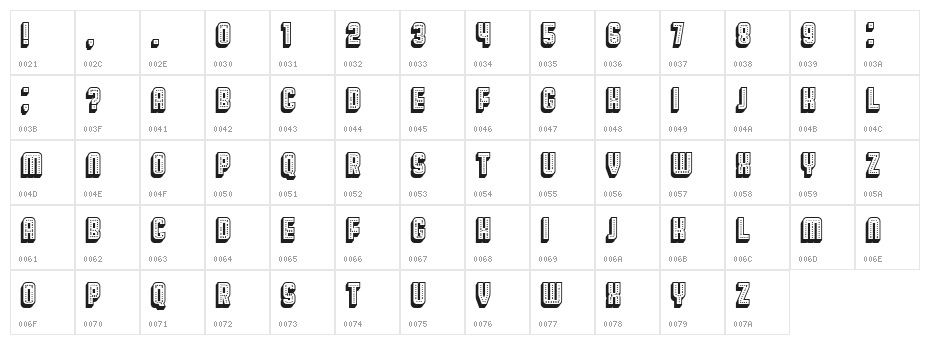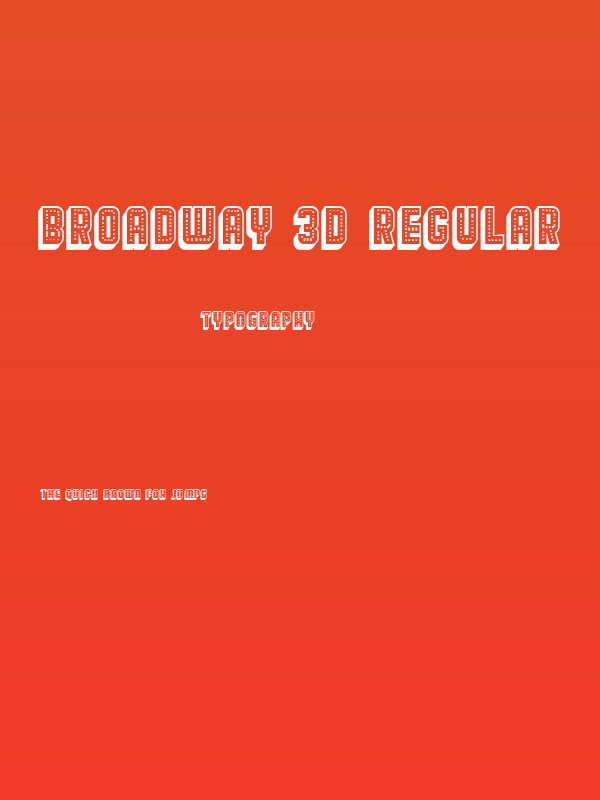
Broadway 3D Regular Font
Broadway 3D Regular Description
This font features a bold, three-dimensional design with a distinct retro flair. Each character is outlined with a thick black shadow, giving it a strong and impactful presence. The interior of the letters is filled with a series of evenly spaced dots, adding a unique texture and visual interest. The font is highly decorative, making it ideal for eye-catching displays. The uppercase letters are consistent in height and width, providing a uniform appearance. The numbers and special characters maintain the same stylistic elements, ensuring cohesion across all glyphs.
| Proposed Projects | Ideal for vintage-themed posters, signage, and theatrical event promotions. |